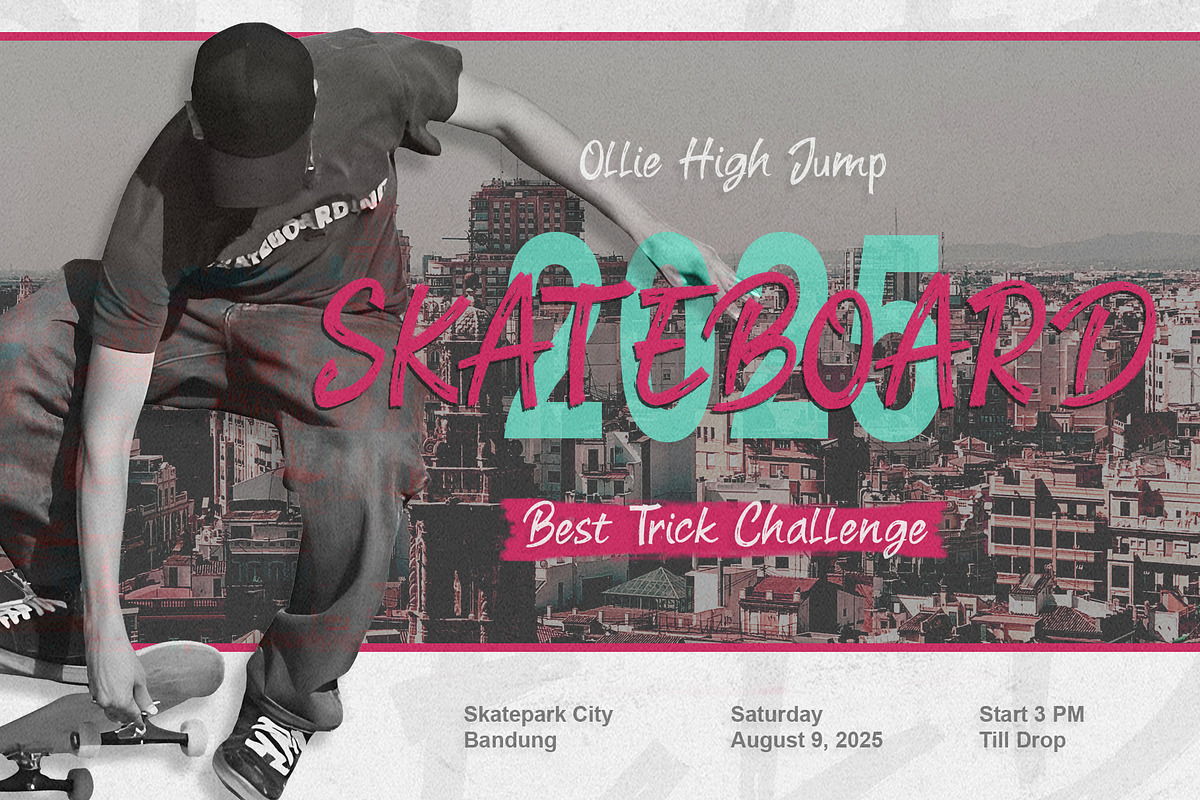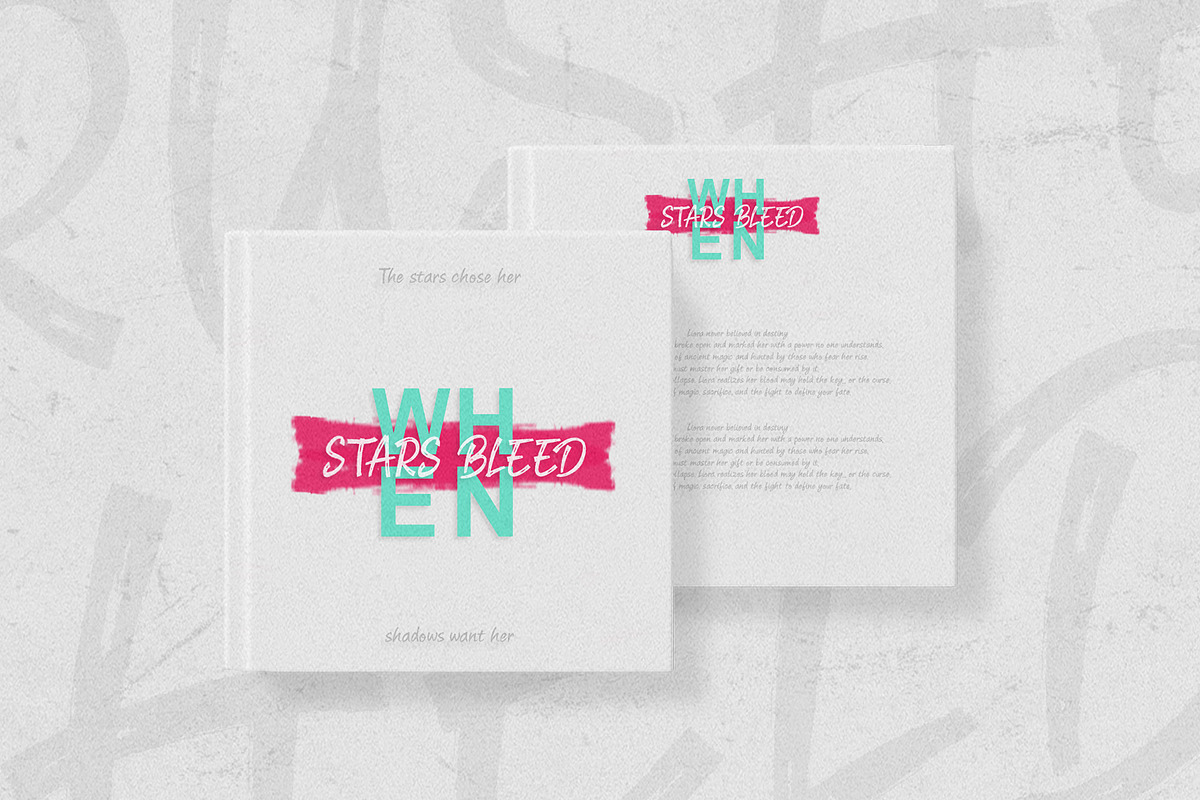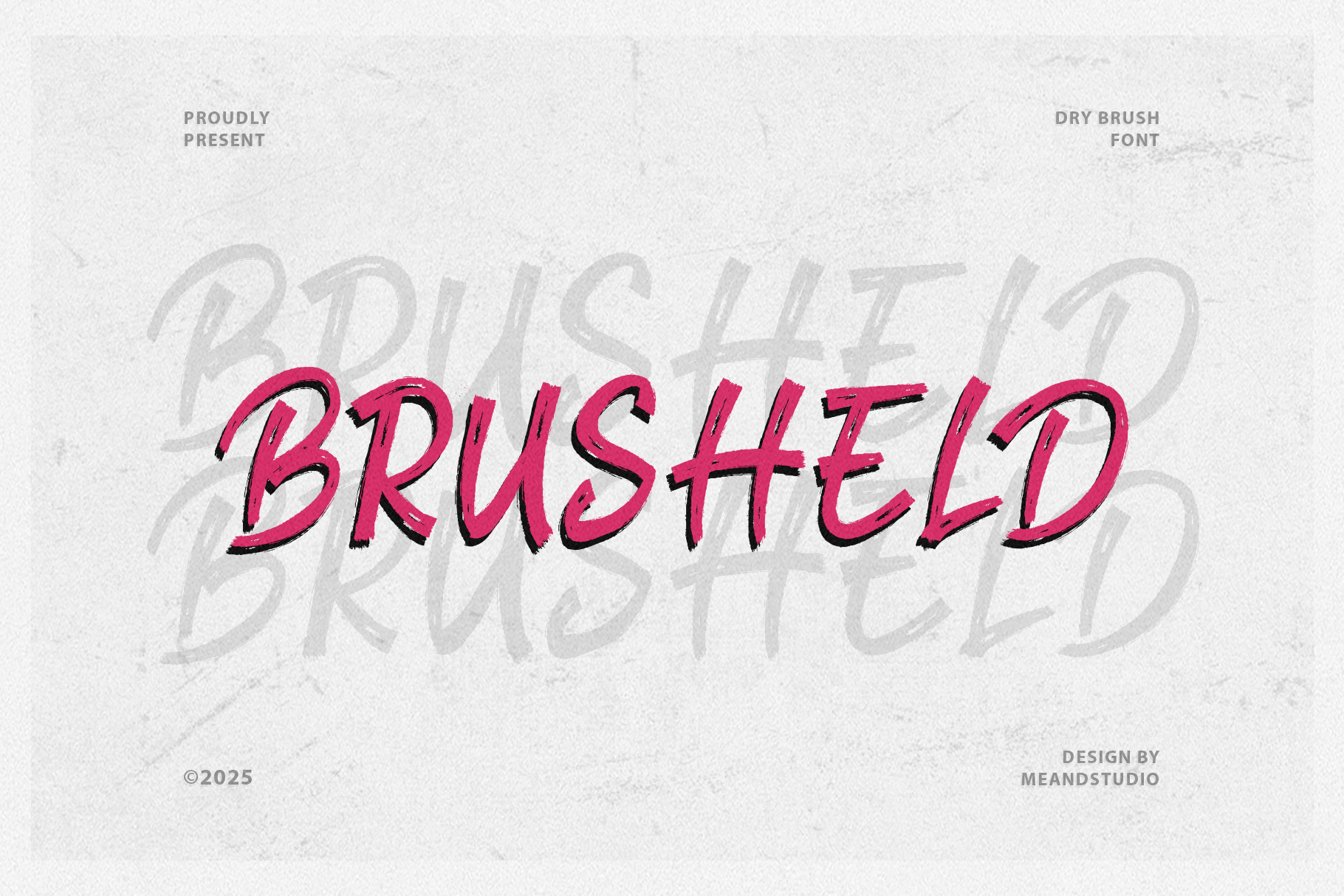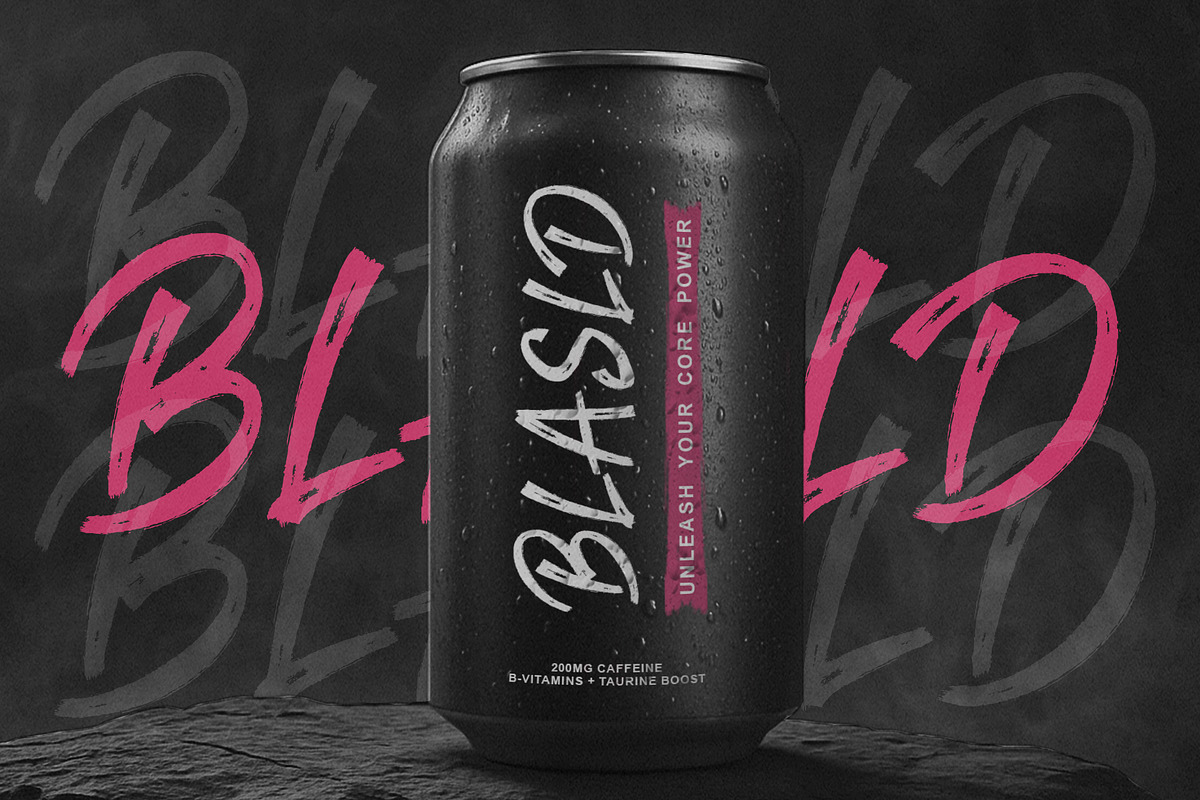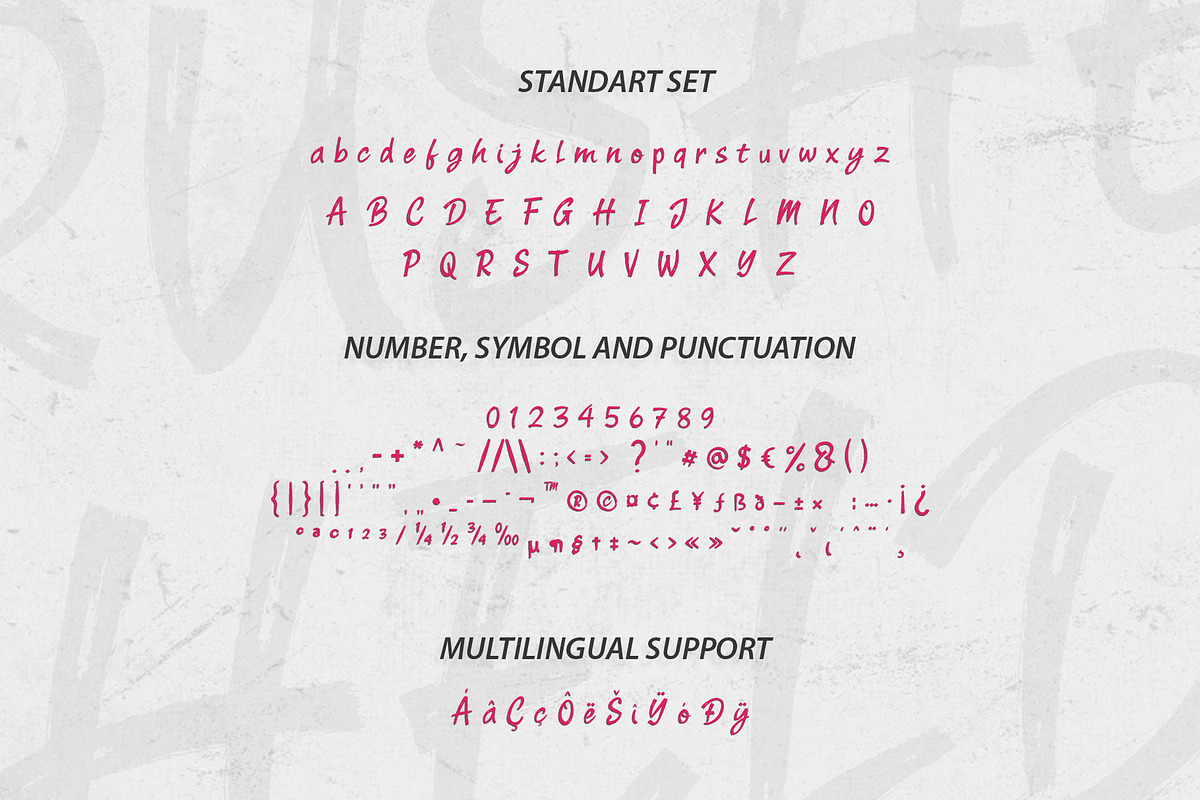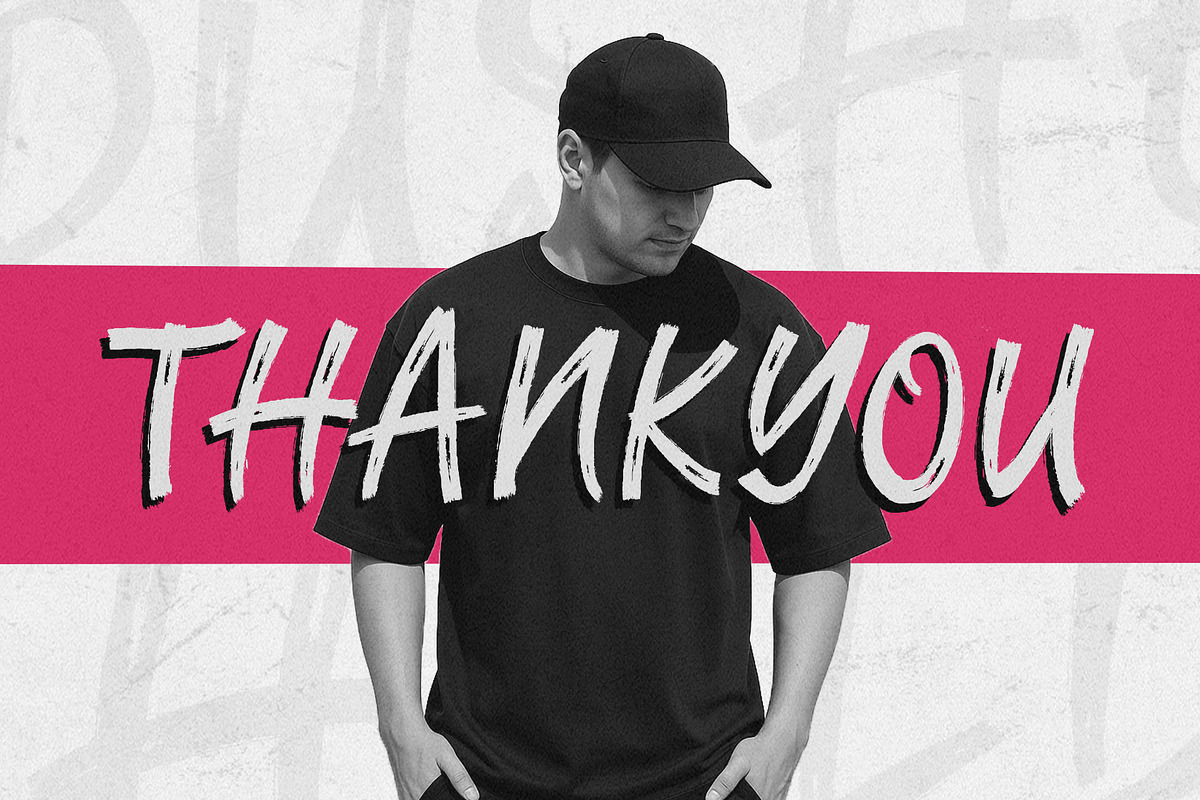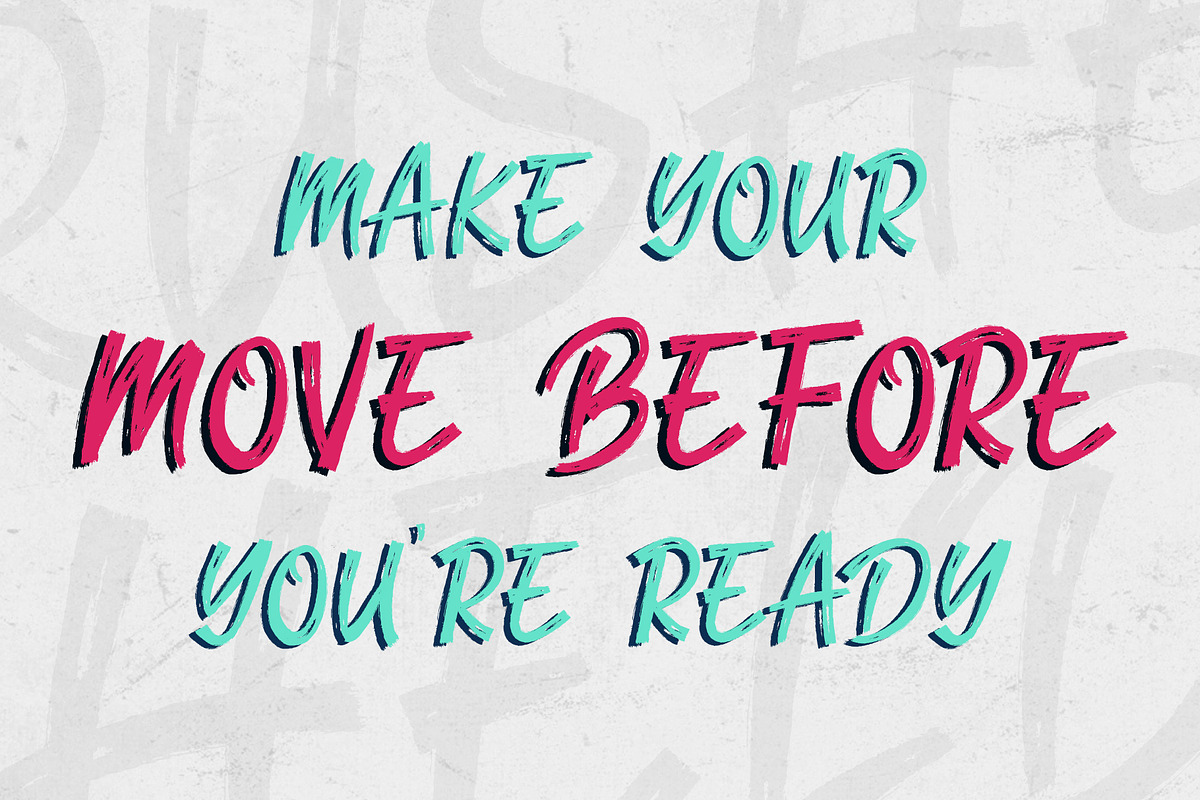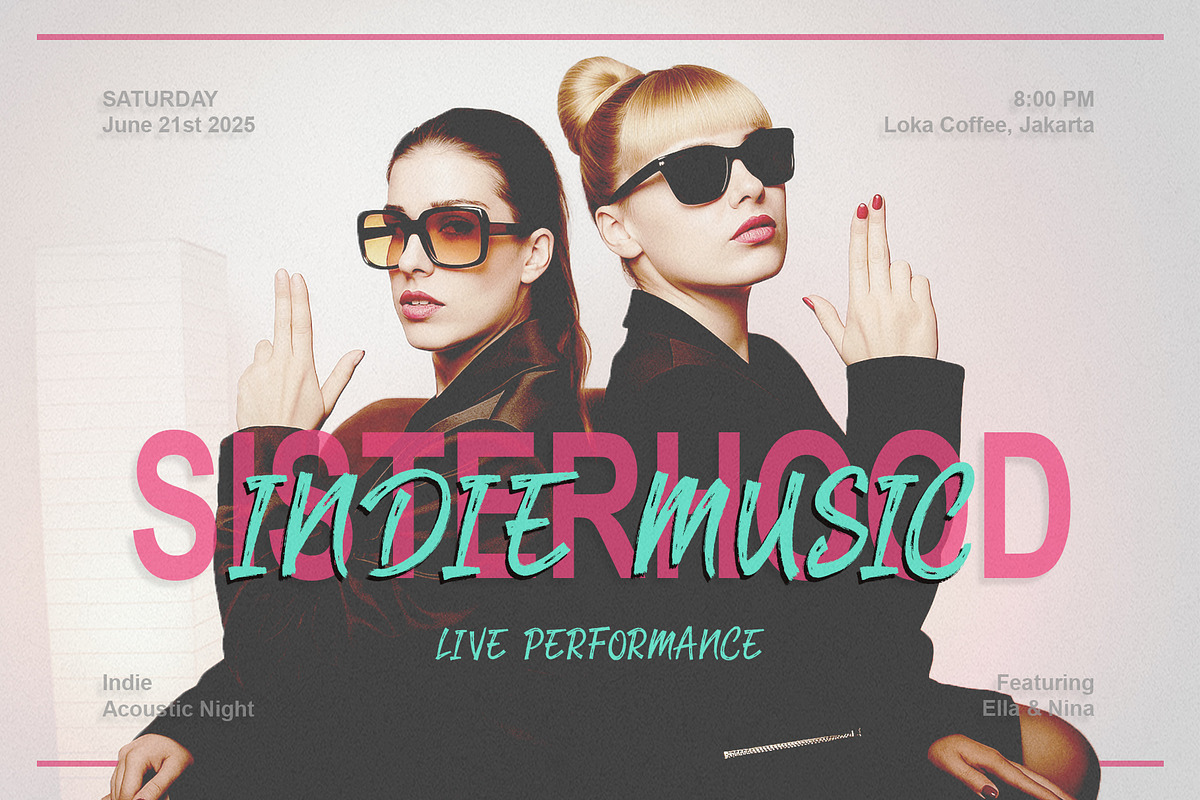
BRUSHELD – Bold Brush Script Font
BRUSHELD is a stylish and dynamic brush script font that brings bold character and a handcrafted vibe to your creative projects. Inspired by modern calligraphy and expressive street art, BRUSHELD combines smooth strokes with energetic curves to create a font that's both eye-catching and highly legible.
This font is perfect for branding, logo design, packaging, social media graphics, merchandise, posters, apparel, and anything that needs a fresh, expressive typographic touch.
Uppercase & Lowercase Letters
Numbers, Symbols & Punctuation
Extensive Multilingual Support
Smooth and natural brush stroke design
Whether you're working on a bold logo or an inspirational quote design, BRUSHELD gives your text a natural flow with a modern brush feel.